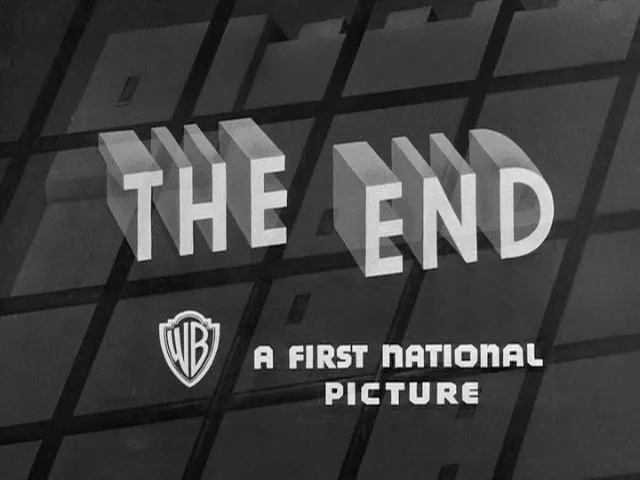
The End of 2009
Appropriately enough for the end of the year, the Movie Title Stills Collection now has a set of “The End” titles from Warner Bros. movies, from 1925 (the earliest available on DVD) to 1967 (when the practice ended). As usual, these are nearly all hand lettered. There is some consistency to the designs, almost as if it were treated as logos. This may have been done on purpose, as a way of branding the pictures, but it seems more likely that is was simple expediency, reusing the same artwork to save time and money, with variations reflecting the shifting tastes over time of the artists involved.